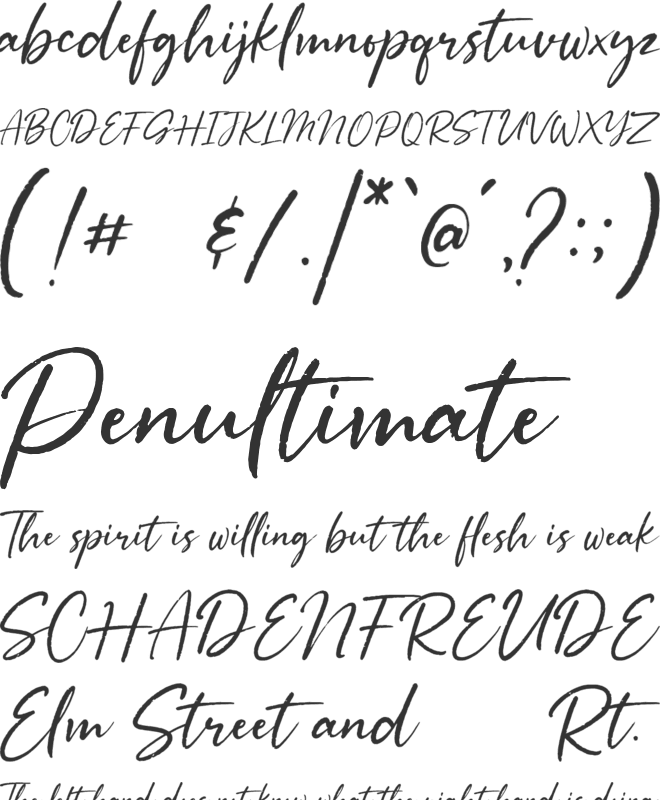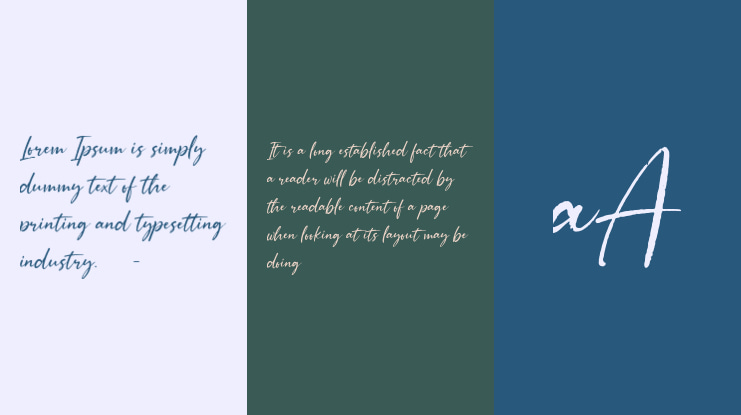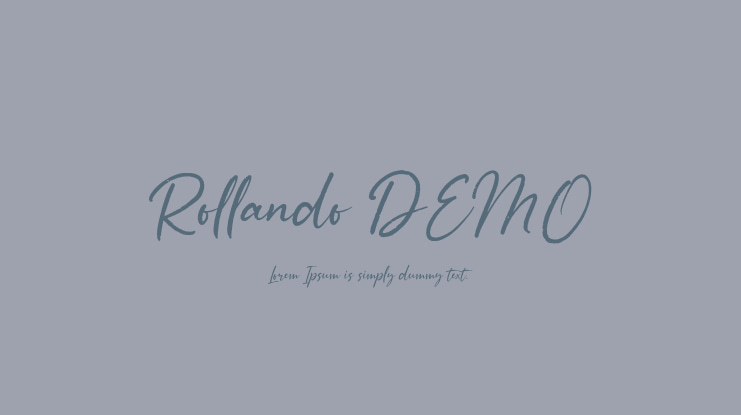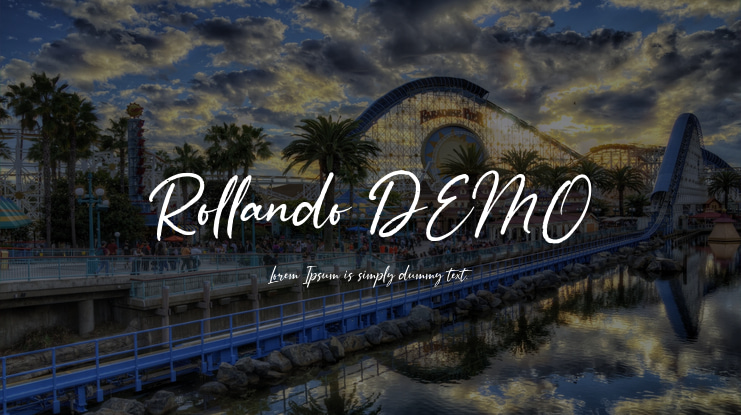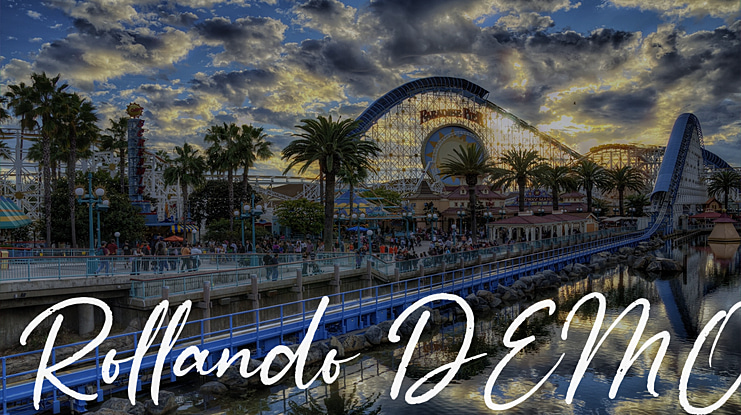
Rollando DEMO Font
GREAT NEWS!!! Introducing the new "Rollando" a beautyful texture typeface. A beautiful vintage script font with alternative and 37 ligatures to complete your needs. With built in Opentype features, this script comes to life as if you are writing it yourself. This font is very good with additional alternatives like multilingual support. With texture make this font look natural, vintage but classic and elegant, very suitable to make a branding, magazine, fashion, quotes, logo, packaging, and other.